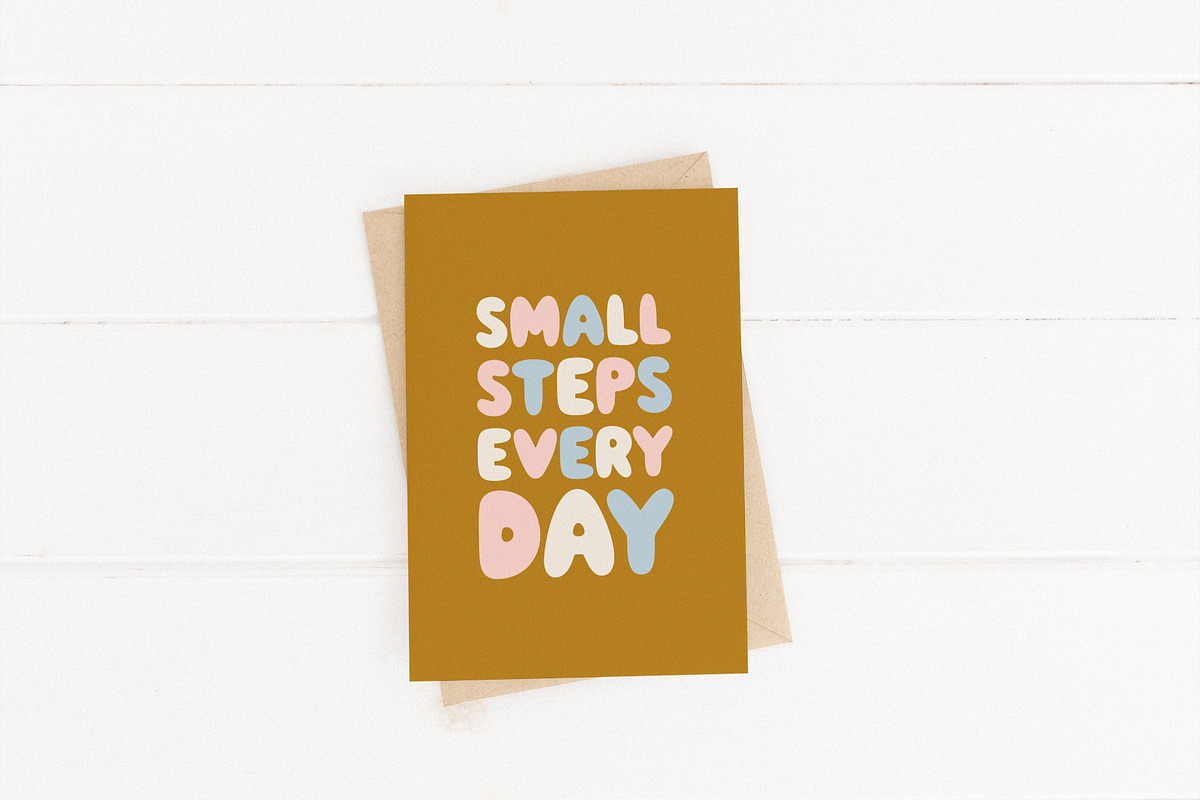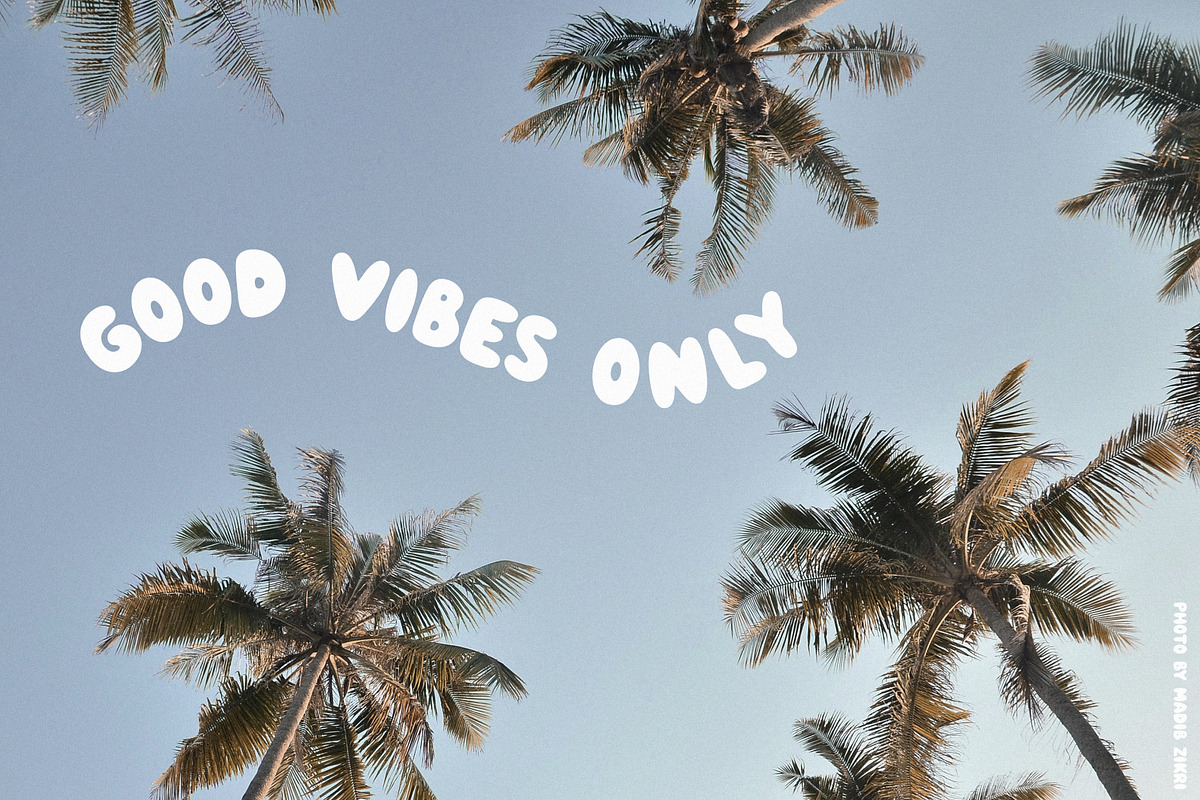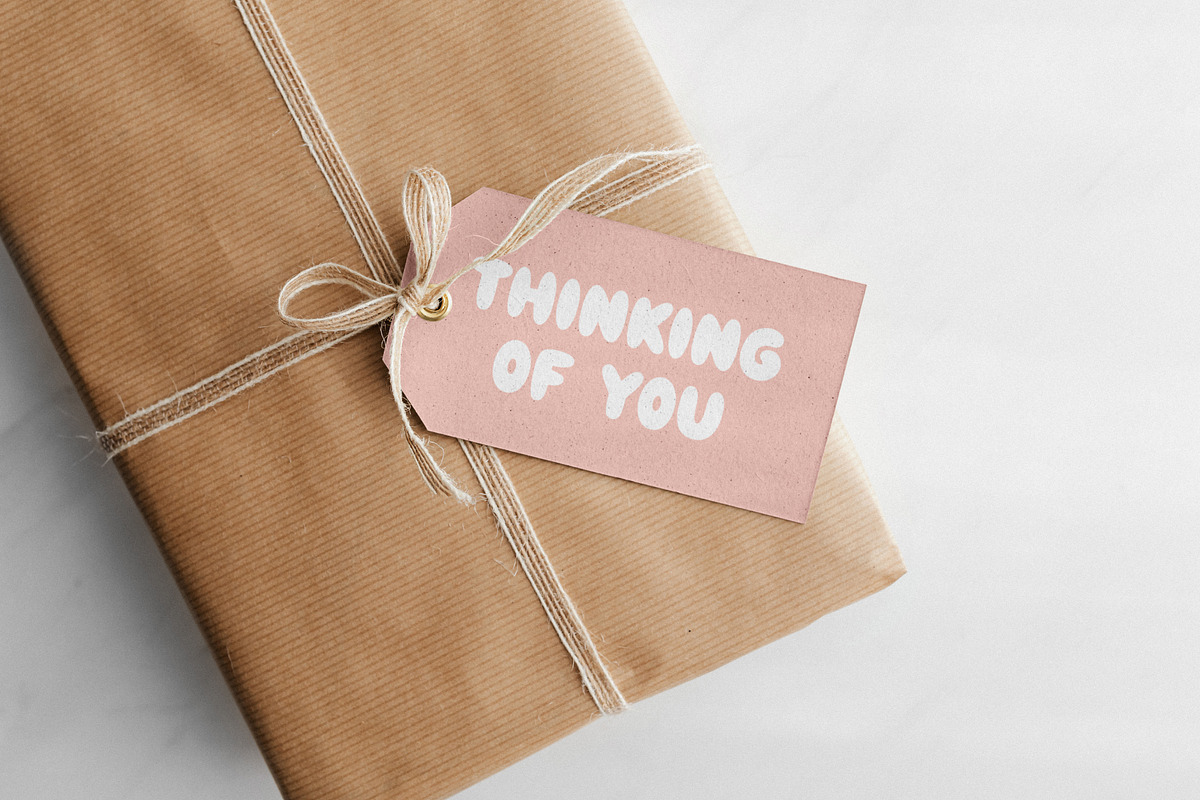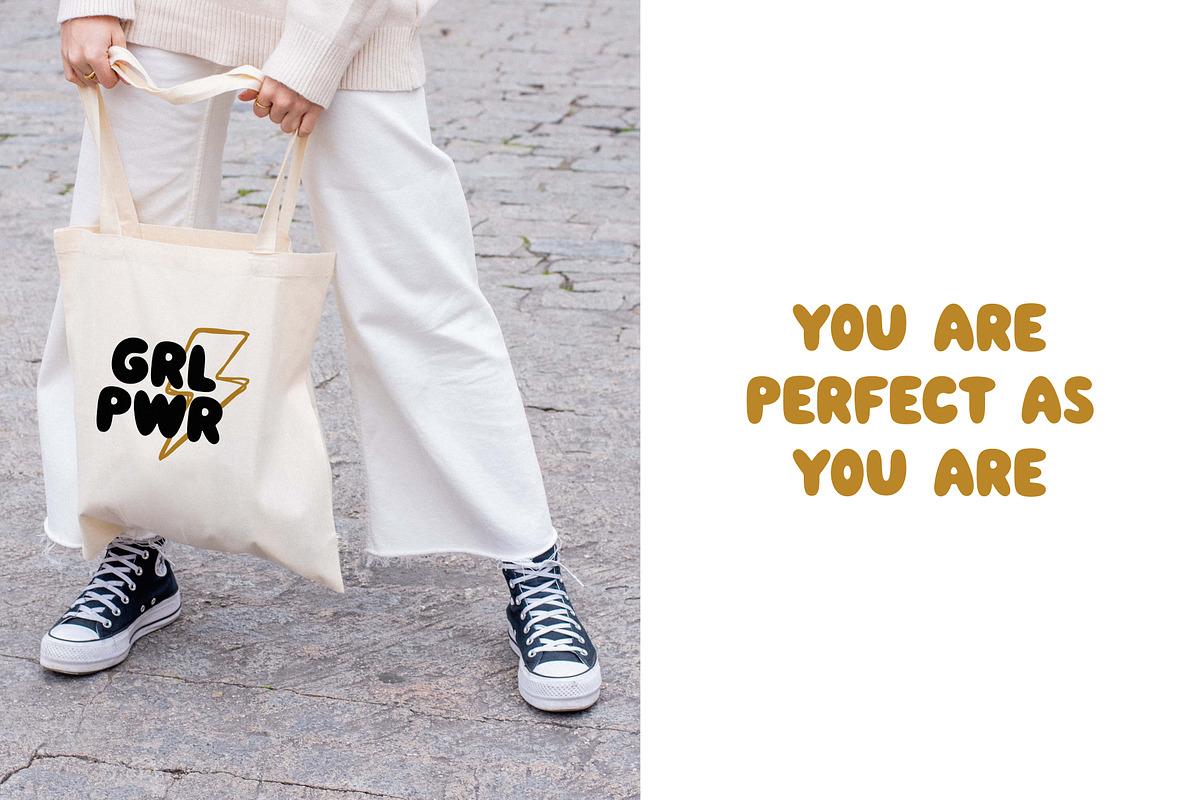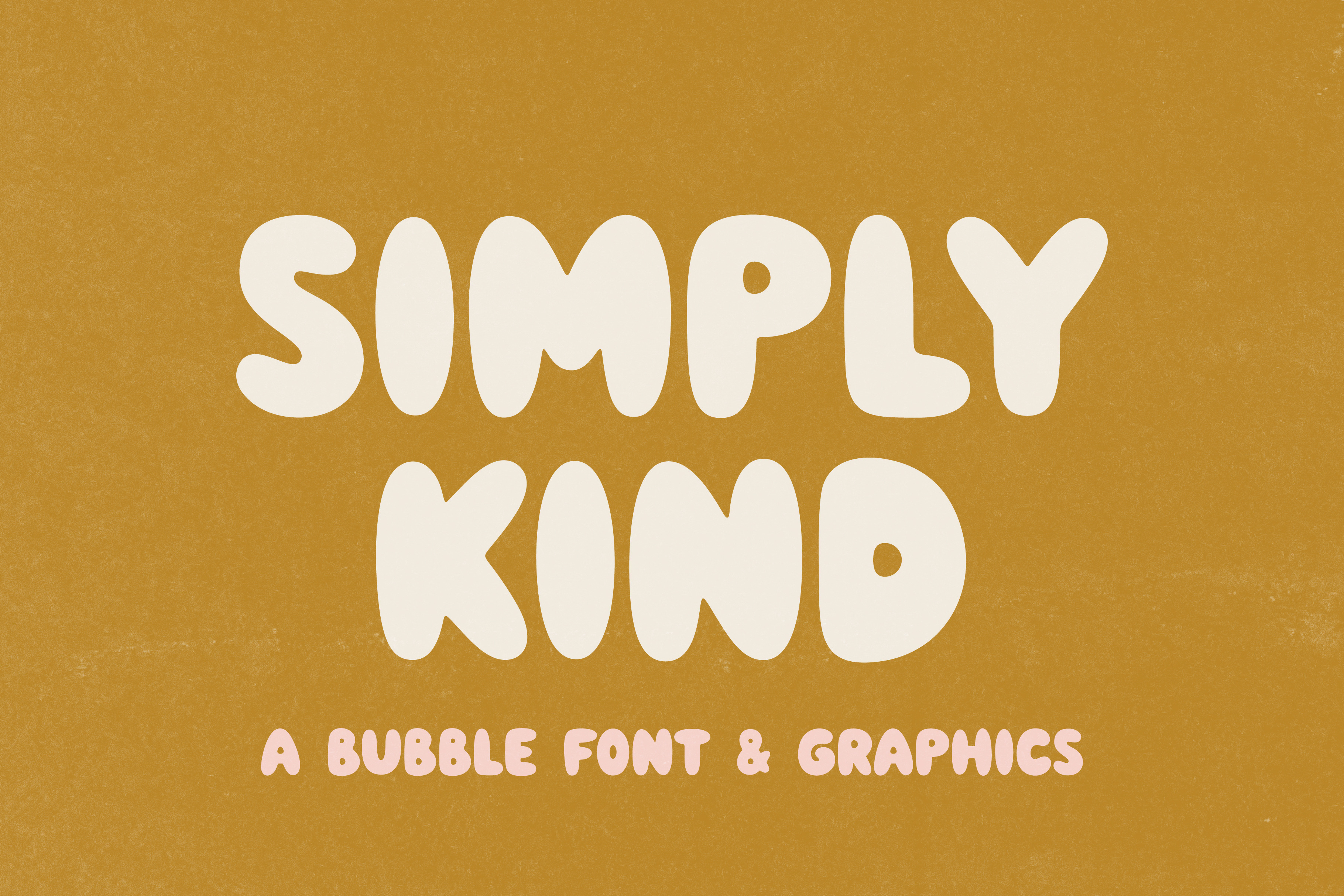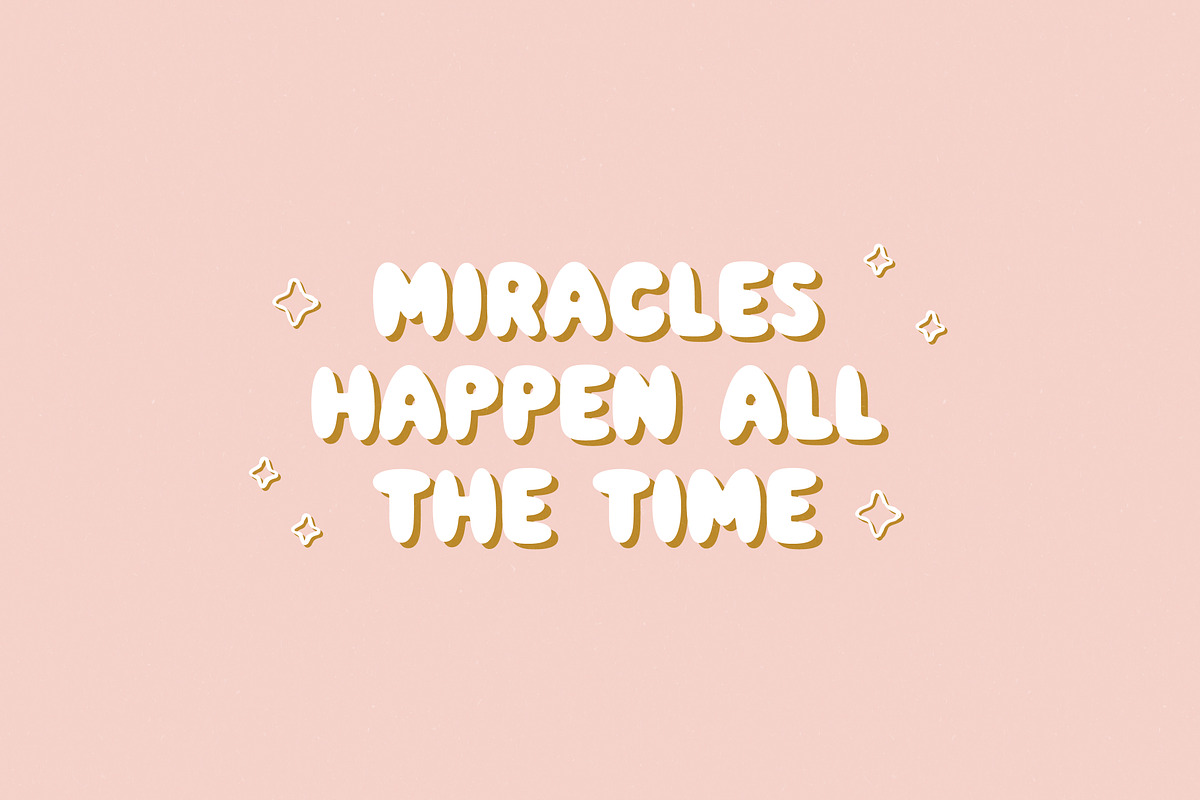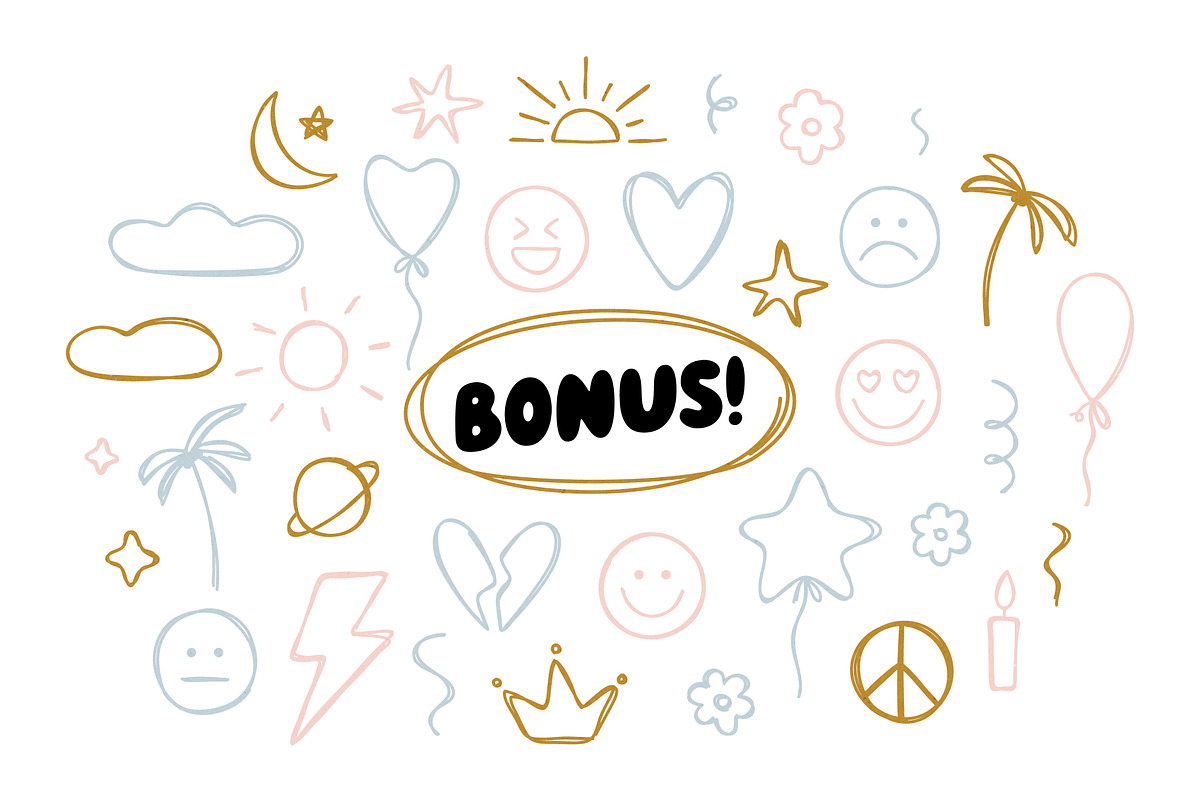
Simply Kind - Bubble Font
Simply Kind is a fun bubble all cups font with trendy doodle graphics.
Perfect for logos, branding, packaging, apparel, cards, posters, quotes, social media posts, and so much more.